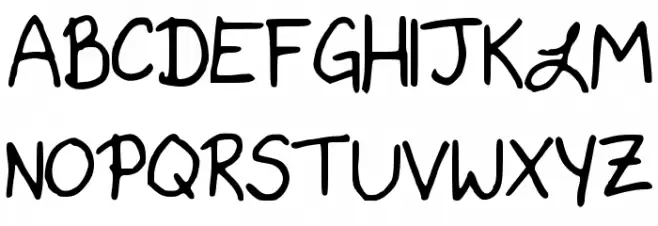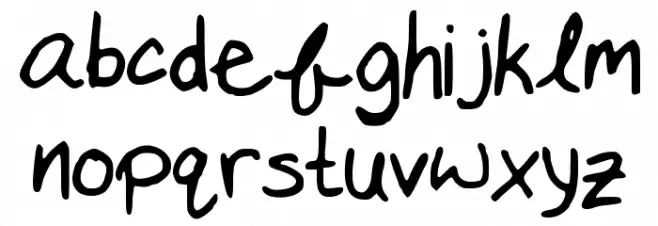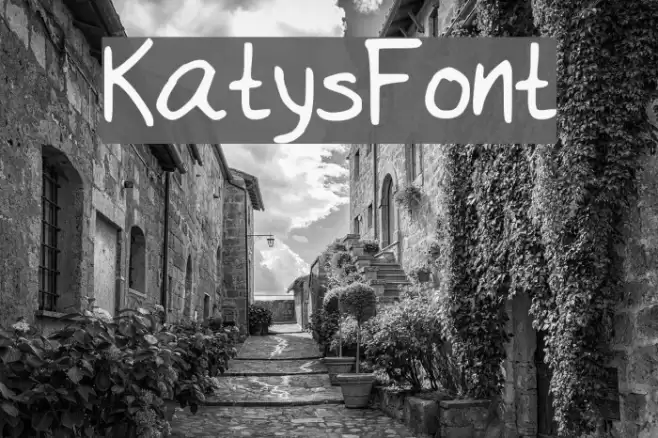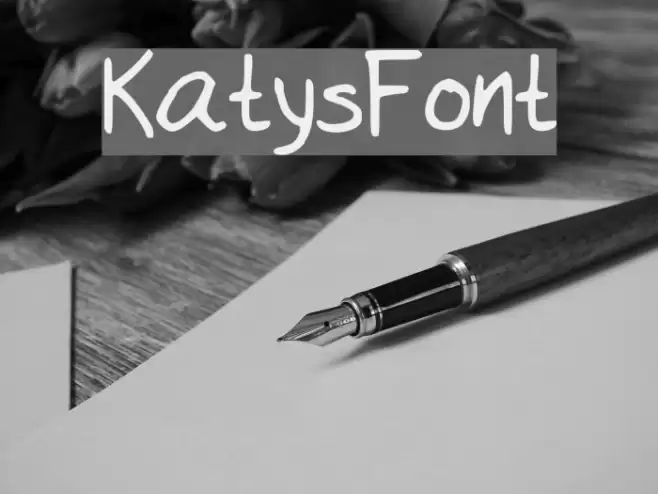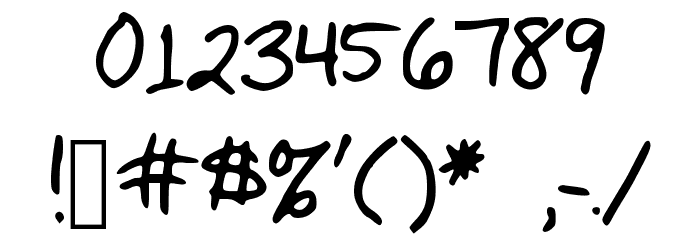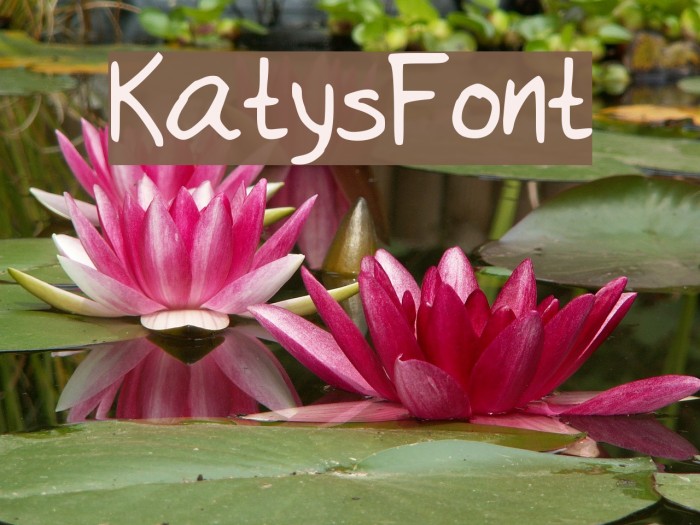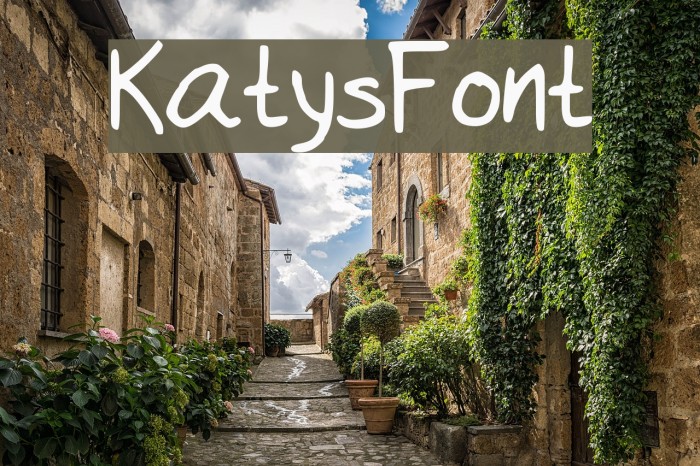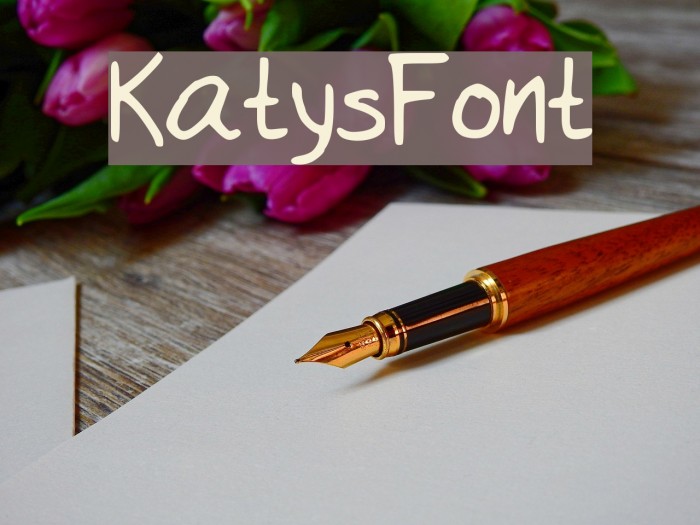
KatysFont
This font features a playful and informal handwritten style, characterized by its bold strokes and slightly irregular letterforms. The uppercase letters are distinct and maintain a consistent height, while the lowercase letters exhibit a charming variation in size and shape, adding to the font's casual appeal. The numbers and special characters are crafted with the same playful touch, ensuring a cohesive look across all characters. This font is perfect for projects that require a personal and approachable feel, such as greeting cards, invitations, or children's book covers.
A playful, bold handwritten font with irregular letterforms.
- Proposed Projects: Ideal for greeting cards, invitations, children's book covers, and informal branding.
- Overall Style: Casual
- Use Case: Headlines, Logos, Informal Text